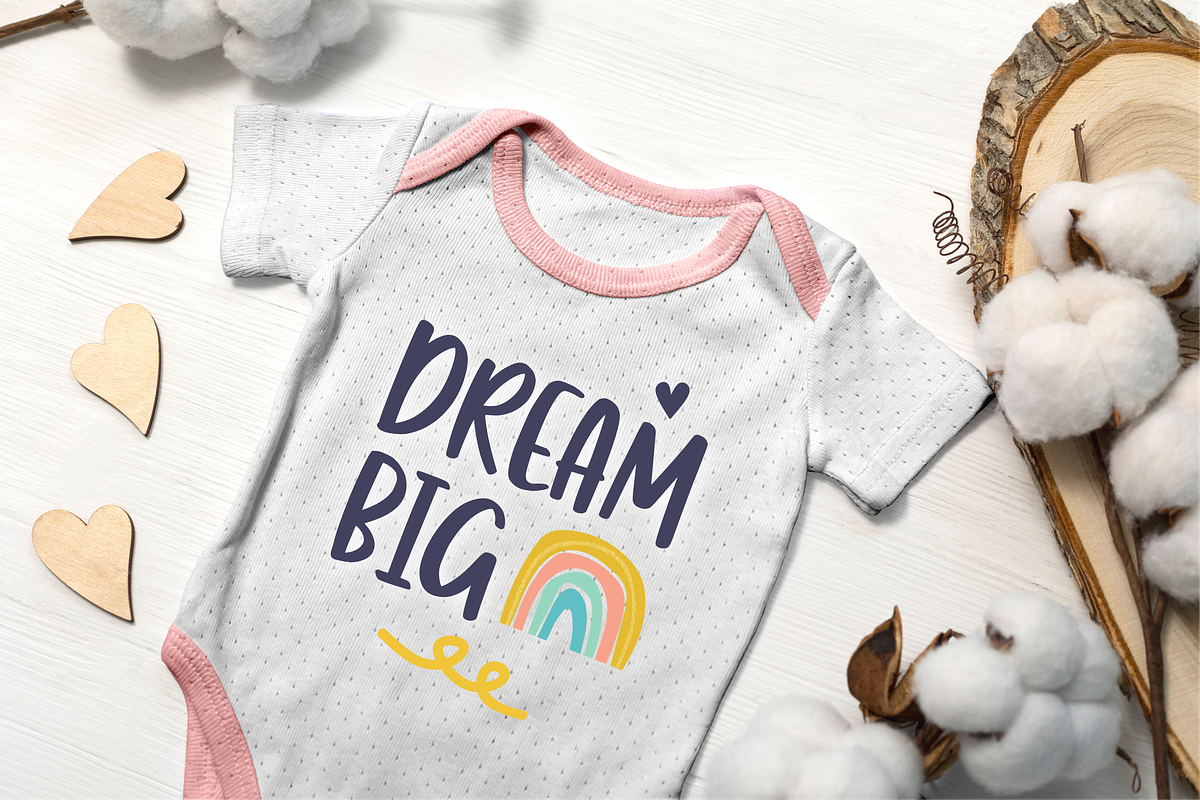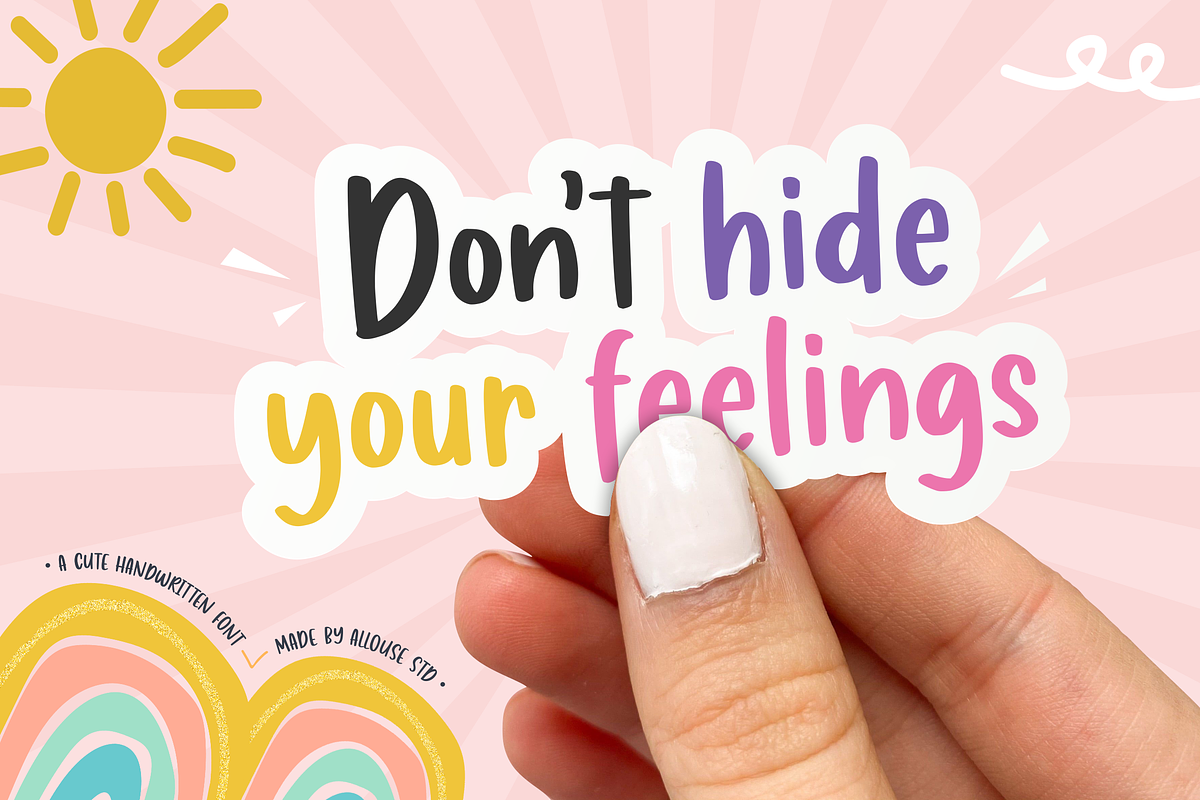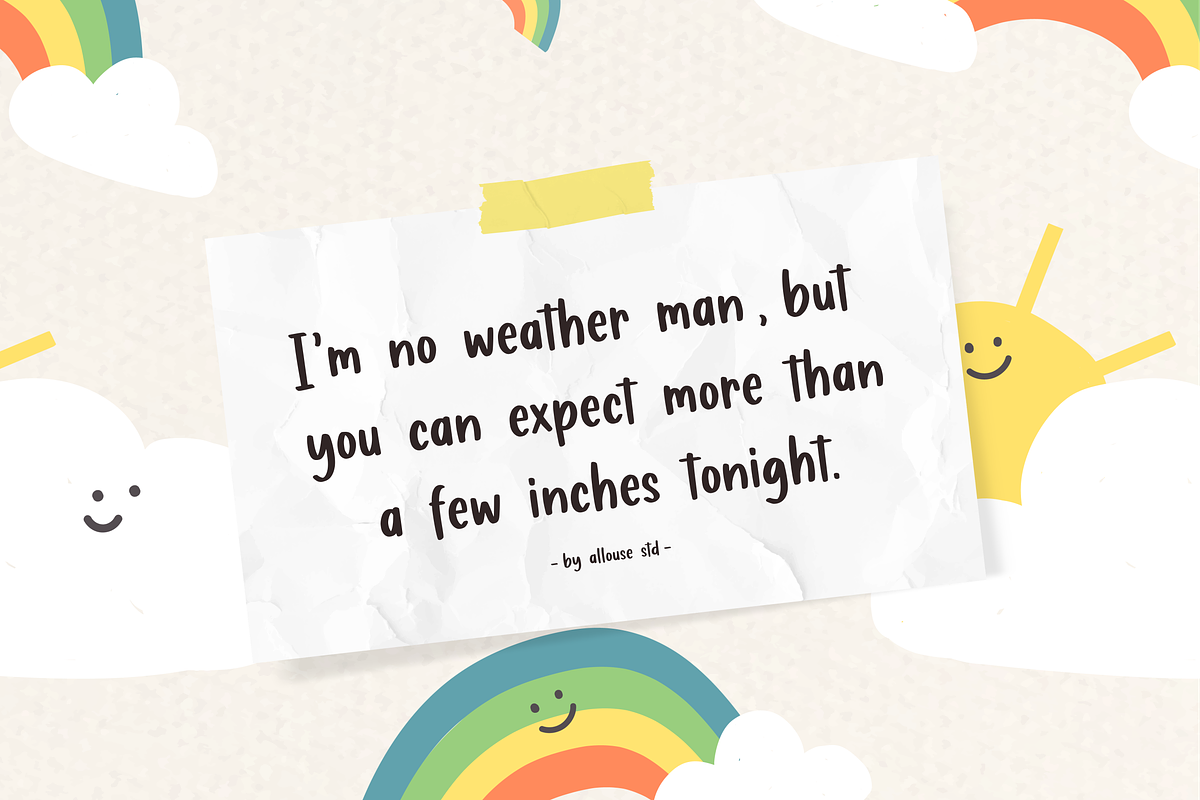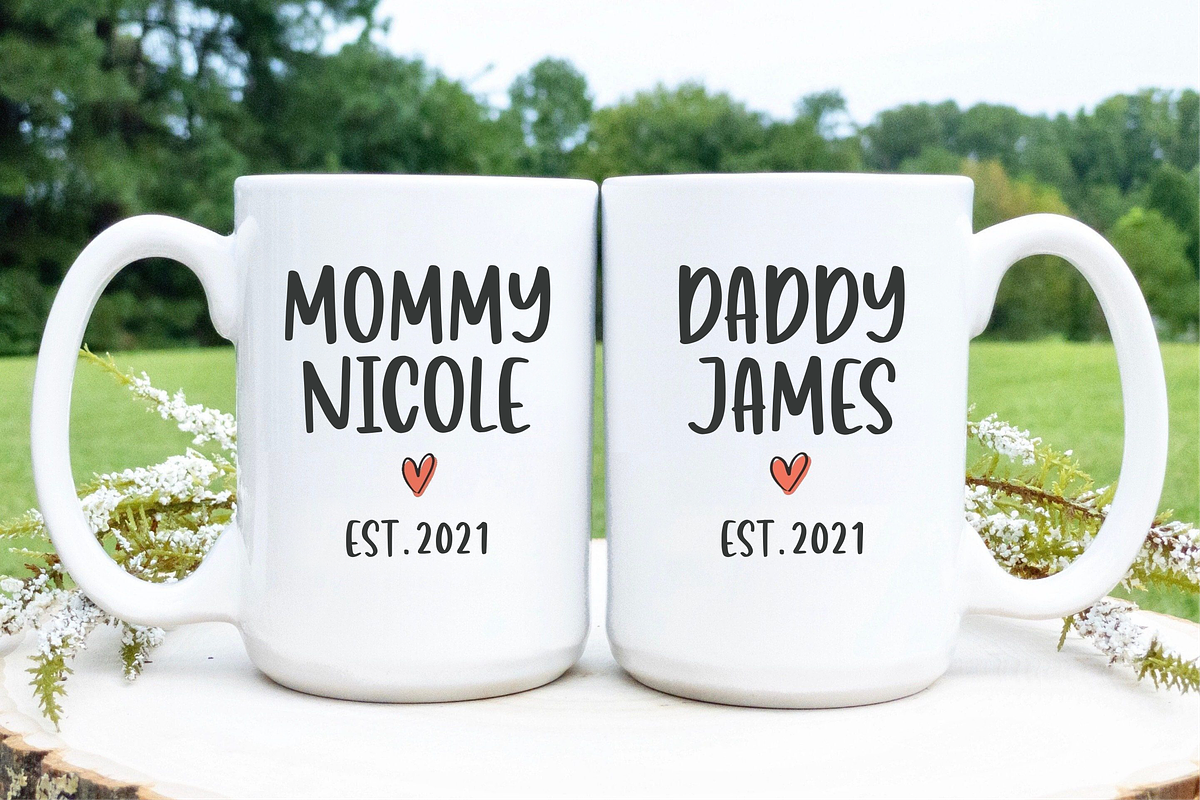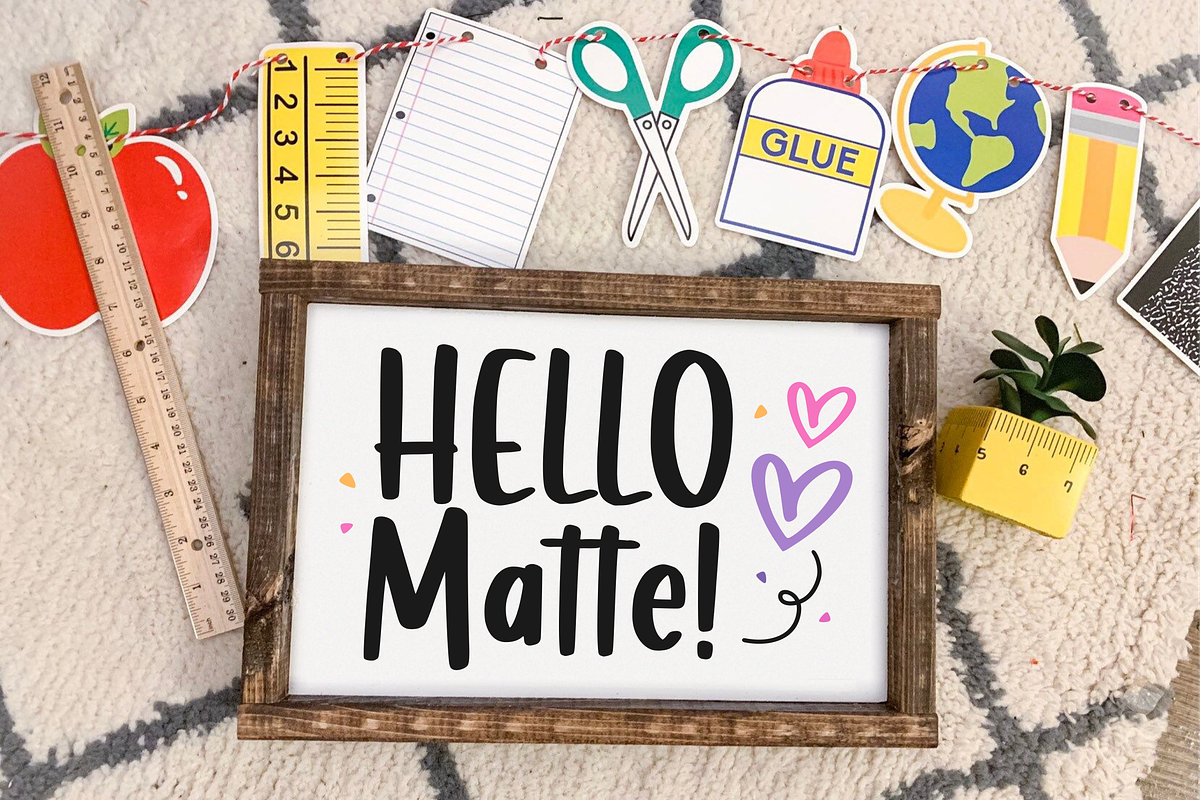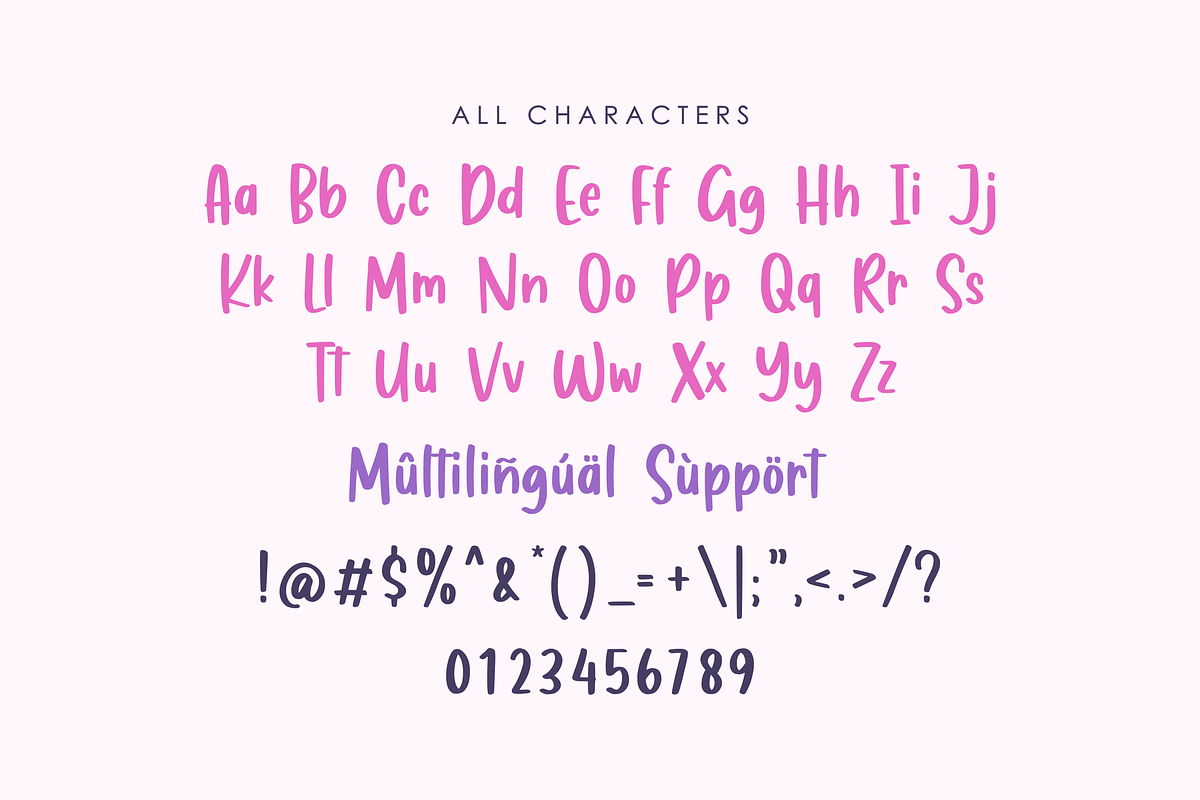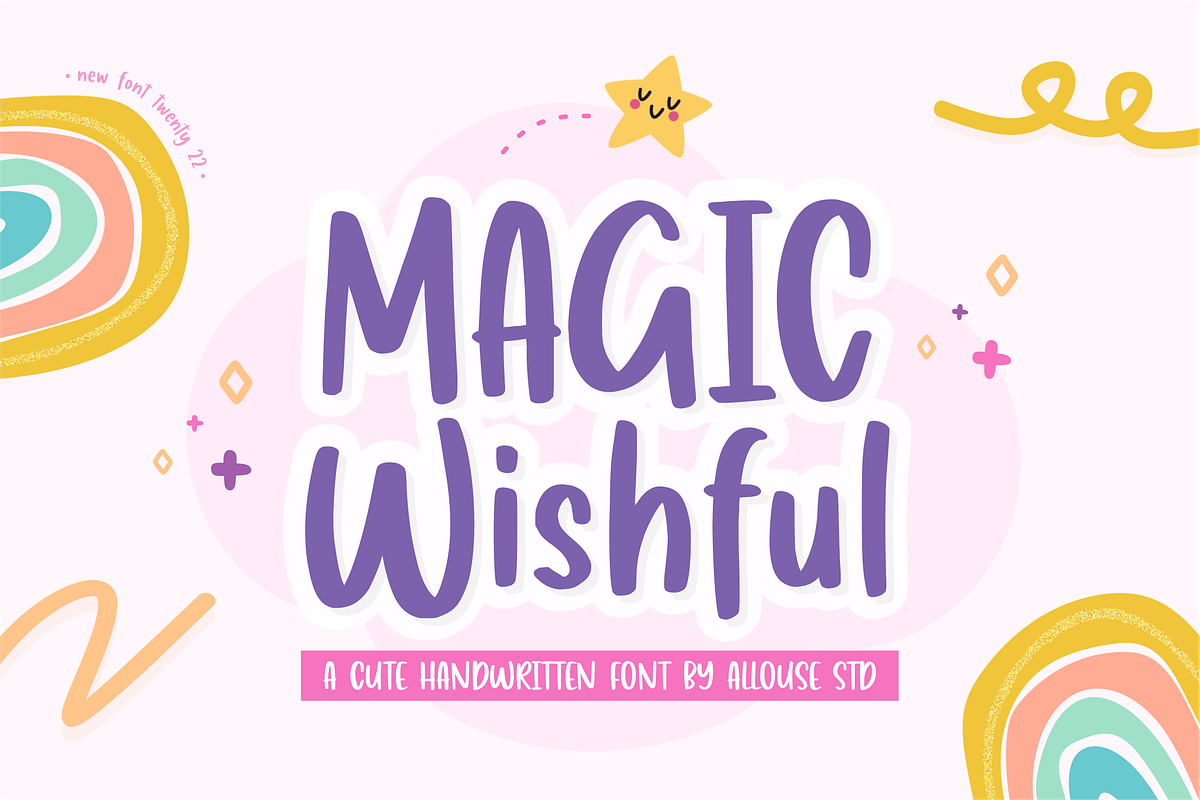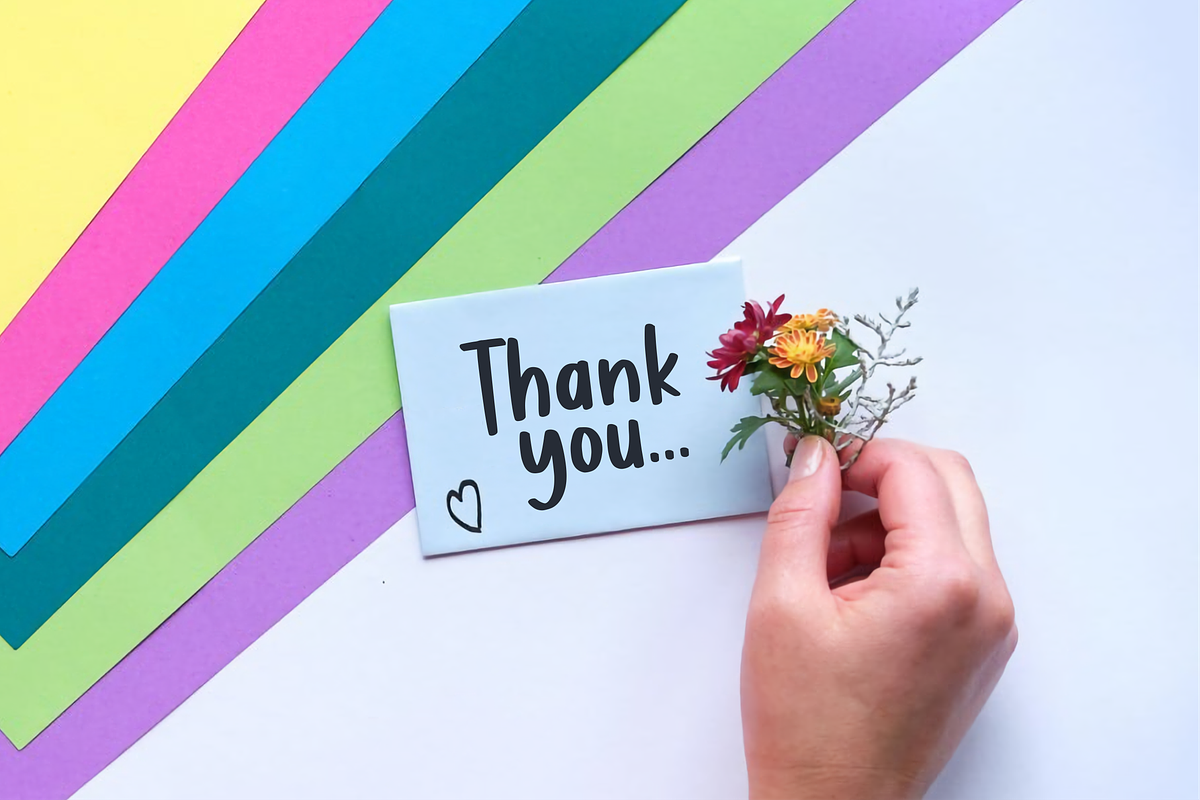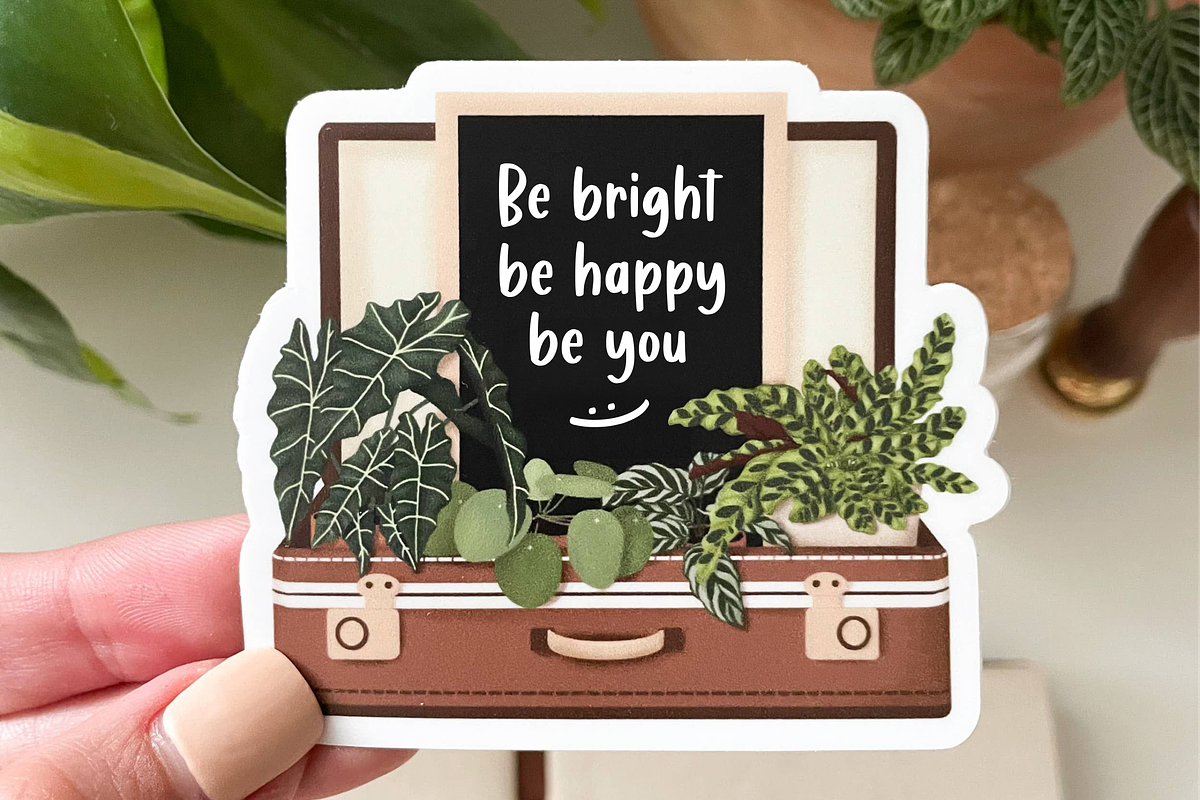
Magic Wishful A Cute Handwritten
Proudly Presenting, Magic Wishful A Cute Handwritten Font.
Magic Wishful is perfect for any titles, logo, product packaging, branding project, megazine, social media, wedding, or just used to express words above the background.
Magic Wishful also come with Multi-Lingual Support.